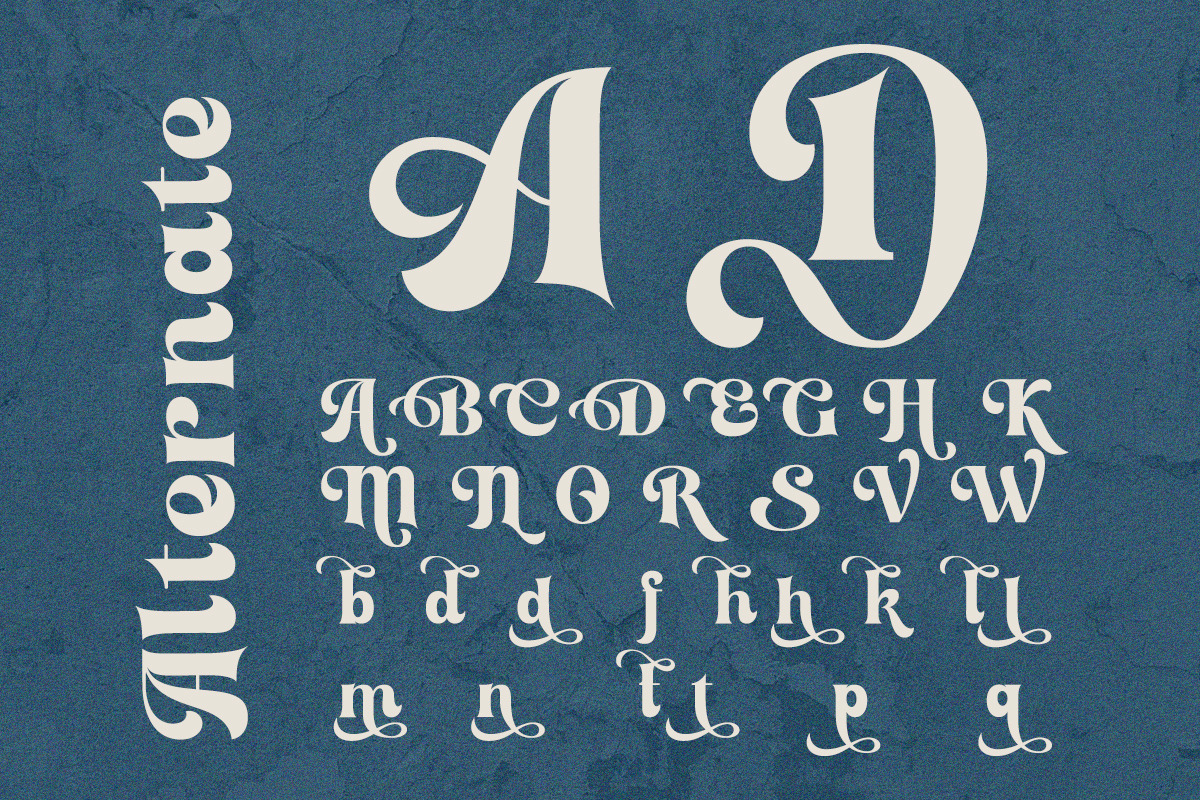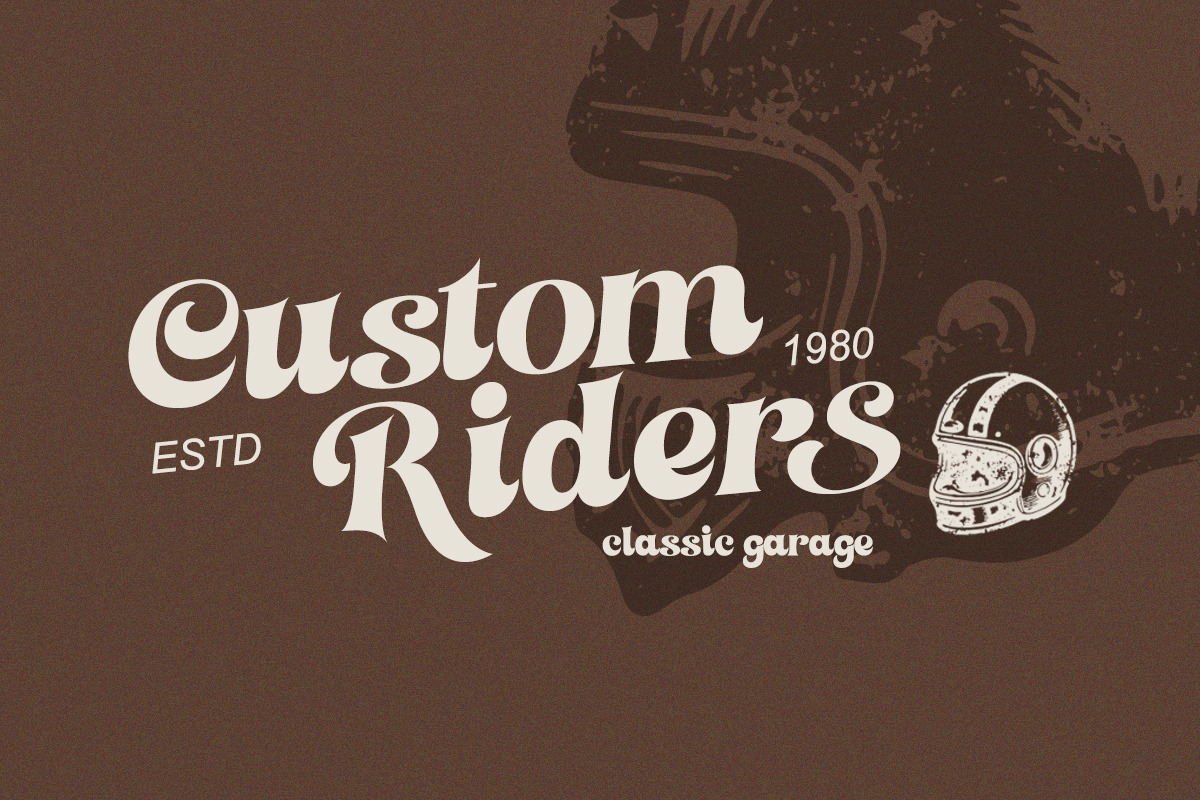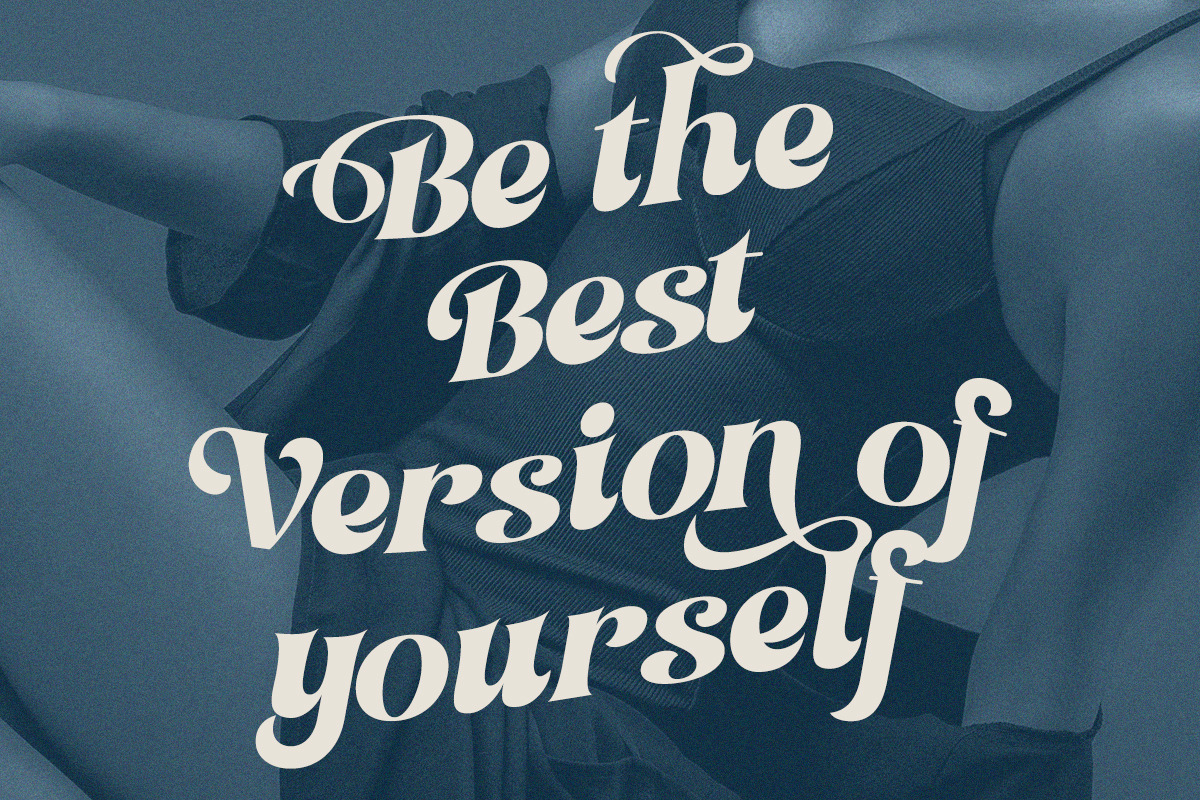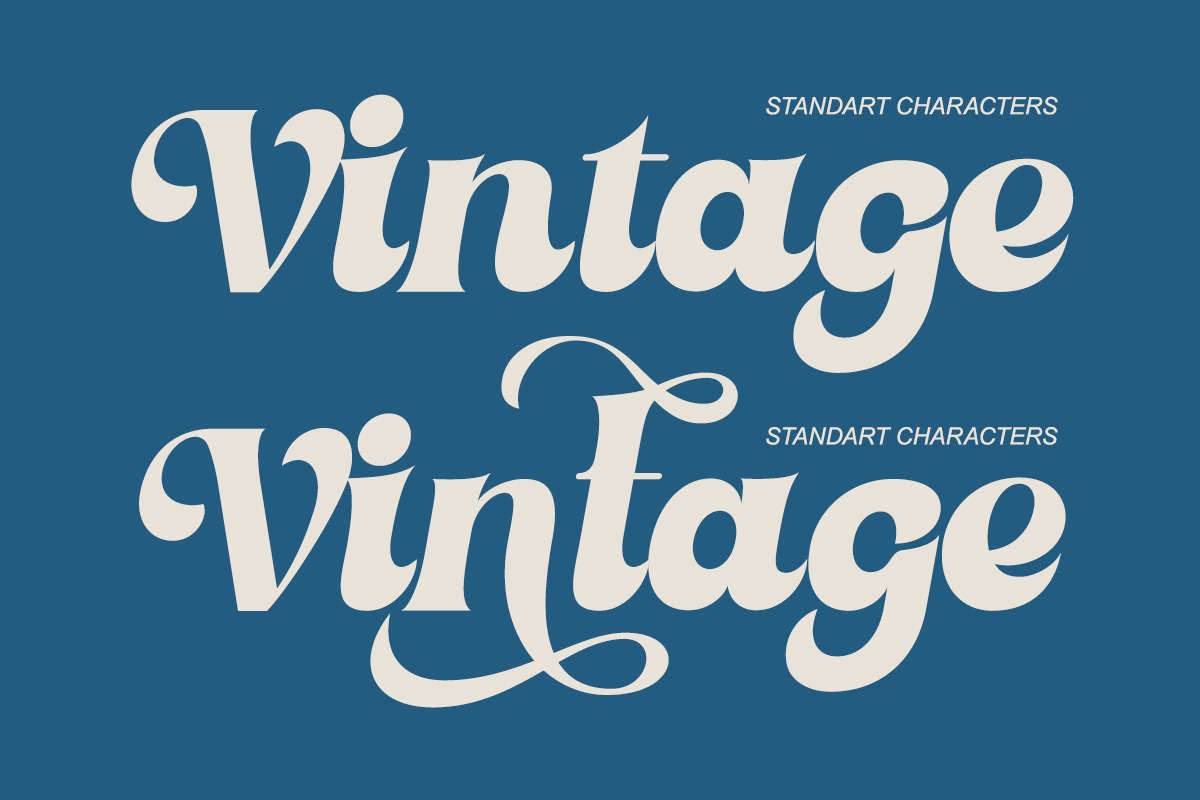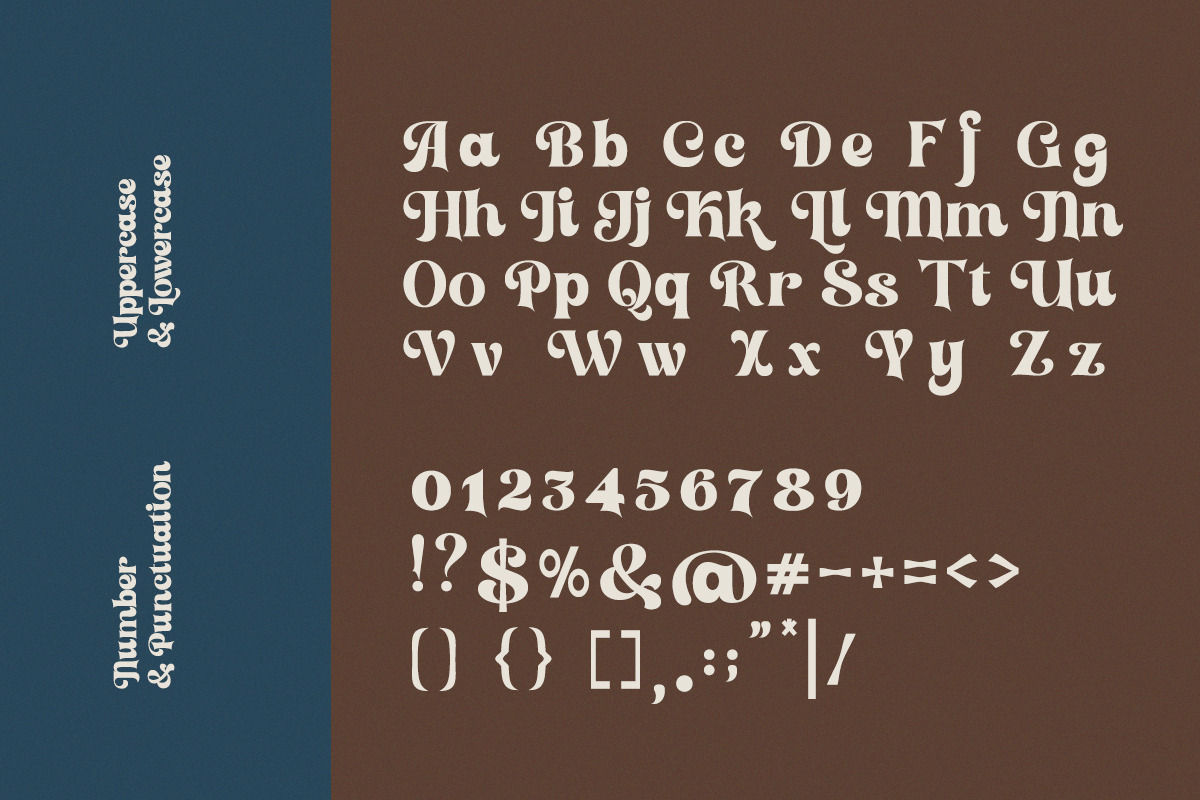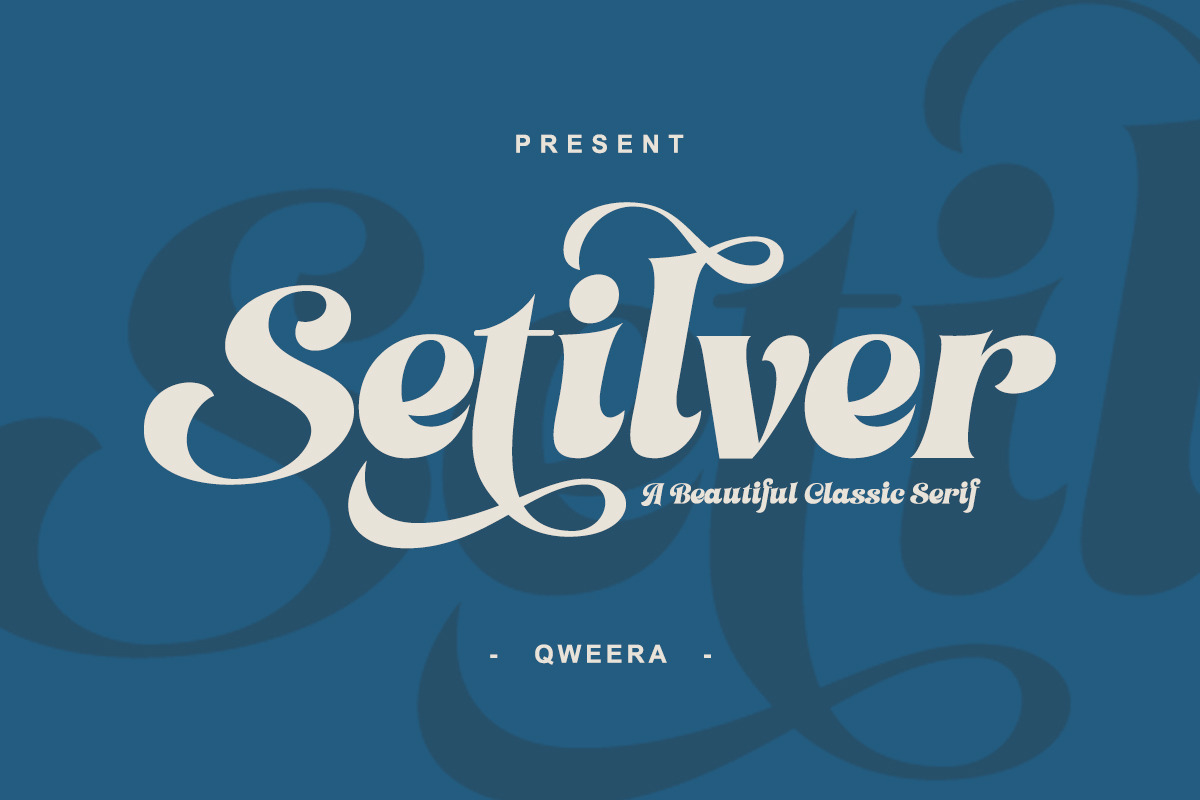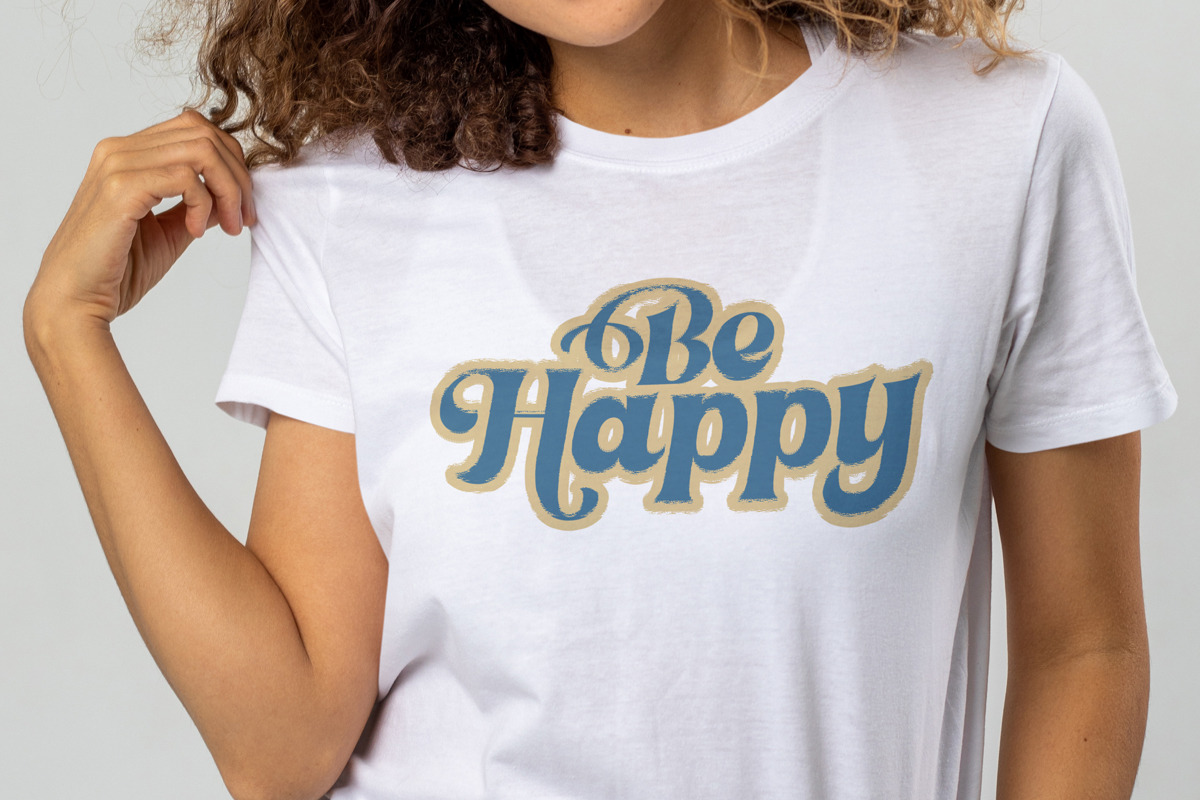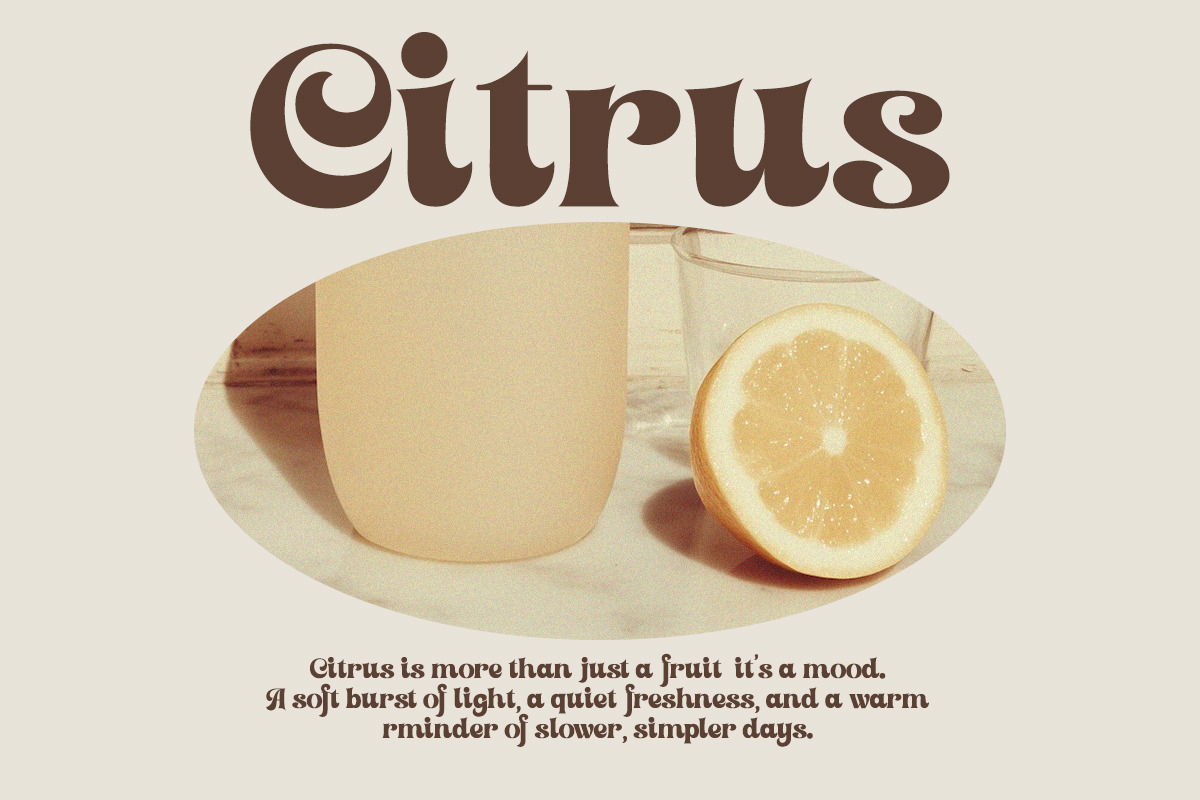
Setilver - Retro Swash Font
Setilver is a bold and stylish retro swash serif font that blends classic charm with a modern twist.
Its smooth curves, sweeping swashes, and elegant letterforms make it perfect for projects that demand a vintage yet fashionable look. Whether for branding, editorial titles, or standout packaging, Setilver delivers timeless appeal with a touch of luxury.
Bring your designs to life with its bold character and captivating retro flair.
- Regular & Italic
- Swashes & stylistic alternates
- Retro-inspired letterforms
- Retro & vintage branding
- Bold logotypes
- Poster & flyer titles
- Editorial headlines
- Boutique packaging
- Stylish apparel design
Give your typography a bold retro soul.